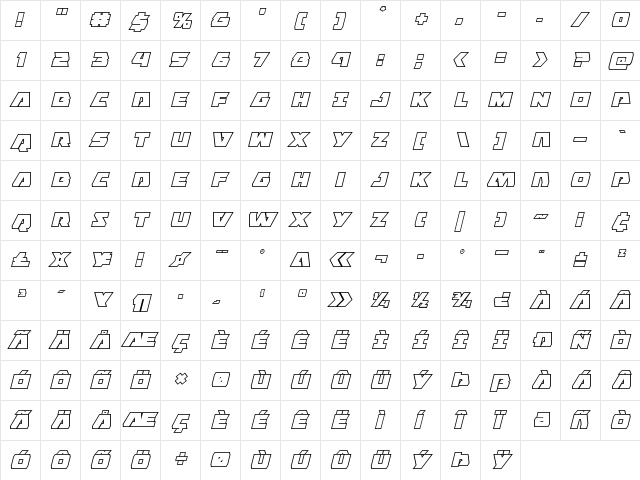
Eagle Strike Bold Outline Italic Italic Font Preview
Design Context for Eagle Strike Bold Outline Italic Typeface
Eagle Strike Bold Outline Italic is built around its visual character rather than neutral utility — its distinctive forms are designed to make an impression at display sizes. The slanted form adds forward momentum and visual energy. The heavy weight commands attention and anchors typographic hierarchies.
Font Pairing: Pair with a clean neutral sans-serif for body copy to let Eagle Strike Bold Outline Italic's character lead without overwhelming the composition.
Pro Tip: Treat Eagle Strike Bold Outline Italic as the centrepiece of your typographic hierarchy. One strong heading set in a decorative face can carry an entire layout.